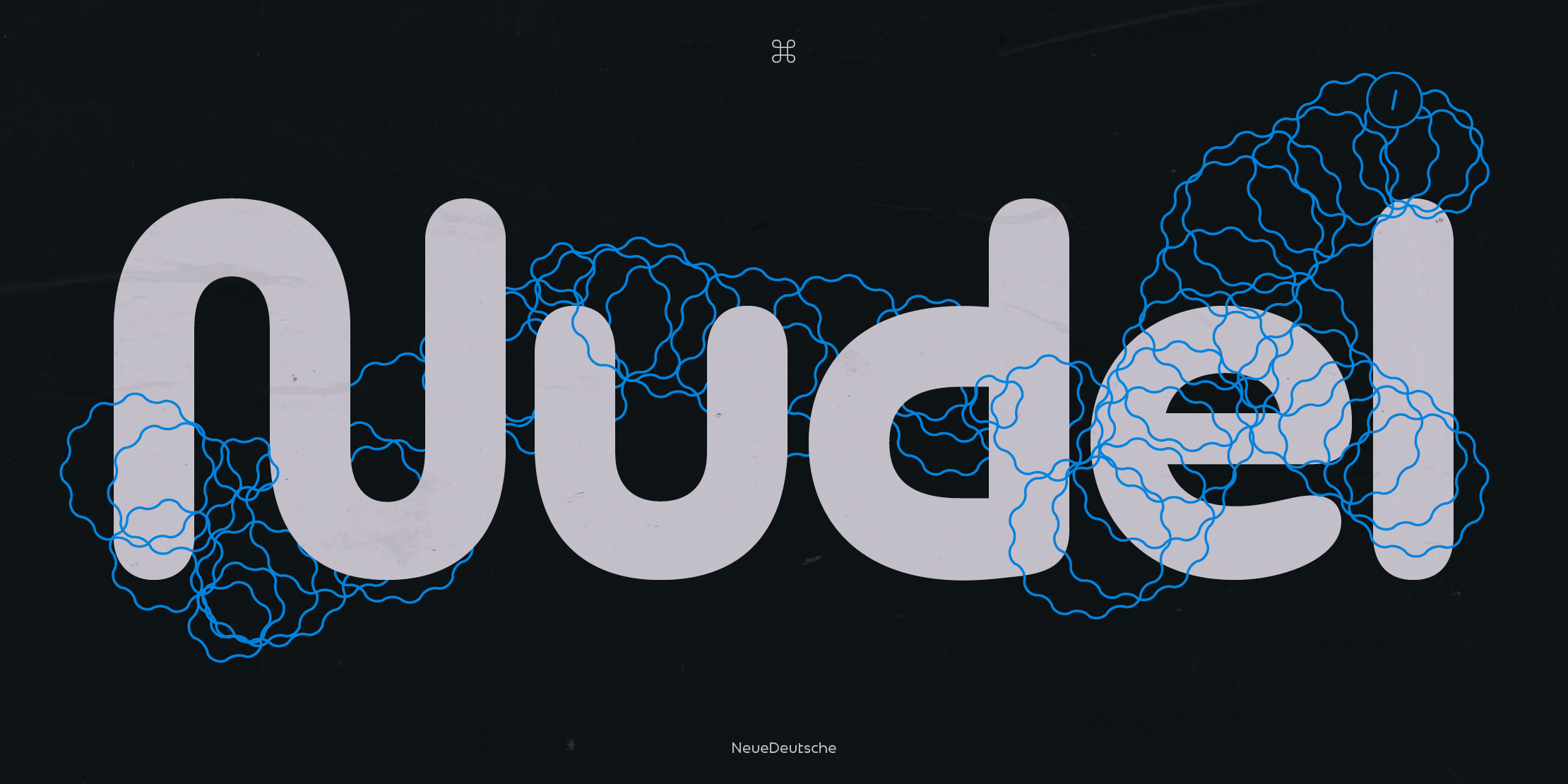
ND Nudel Font is perfect for playful and culinary applications including pasta restaurant branding, food truck signage, children's cookbook covers, family dining establishments, Italian bistro materials, cooking class promotions, food festival graphics, and casual dining menu designs. This delightful typeface brings whimsical charm and culinary warmth to projects celebrating food culture and family-friendly dining experiences with authentic character.
What makes ND Nudel Font exciting is its playful interpretation of noodle-like forms that create an immediate association with comfort food and culinary joy. The font features curved letterforms with organic flowing shapes that mimic the twisted and curled appearance of various pasta types. Its friendly character design incorporates food-inspired elements with approachable warmth that communicates comfort and hospitality while maintaining excellent readability for restaurant and food service applications.
The ND Nudel Font family includes multiple stylistic variations and weight options that enhance the culinary aesthetic while preserving playful appeal. From light weights for delicate menu applications to bold variants for impactful restaurant signage, each style maintains the signature noodle-inspired character. The family also includes decorative elements and food-related symbols that amplify the font's ability to communicate culinary themes and family-friendly dining atmosphere.
Restaurant owners and food industry professionals consistently choose ND Nudel Font Free Download for projects requiring playful culinary typography and family-friendly appeal. Whether developing Italian restaurant branding, creating food festival materials, or designing family dining communications, this font delivers exceptional warmth and culinary character. Its unique combination of food-inspired design and approachable personality makes it an invaluable resource for culinary professionals working on family restaurants, food service branding, and dining experiences that celebrate the joy of food and the comfort of shared meals in welcoming environments.